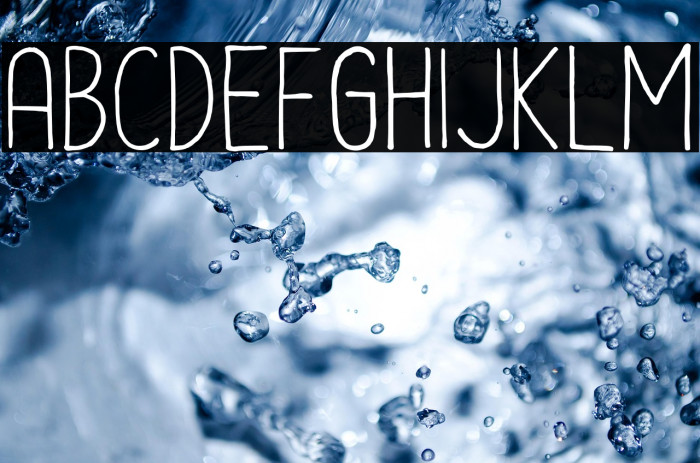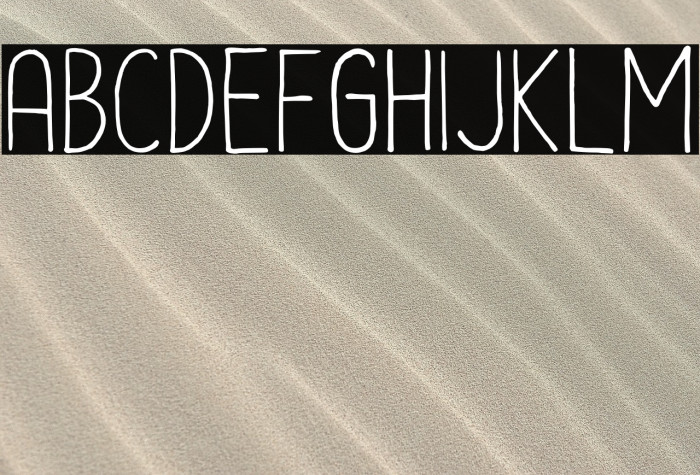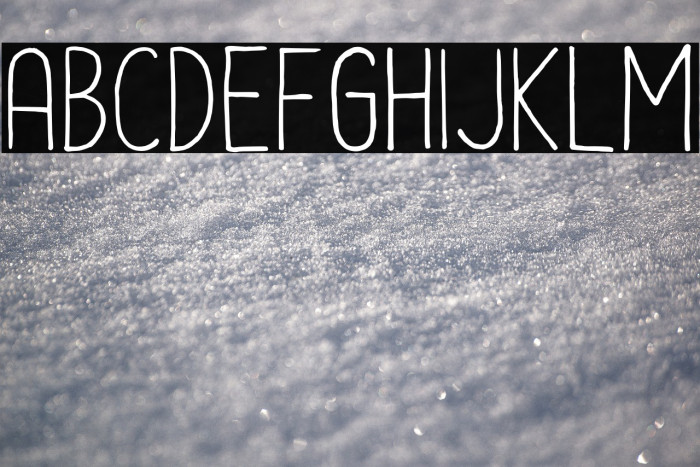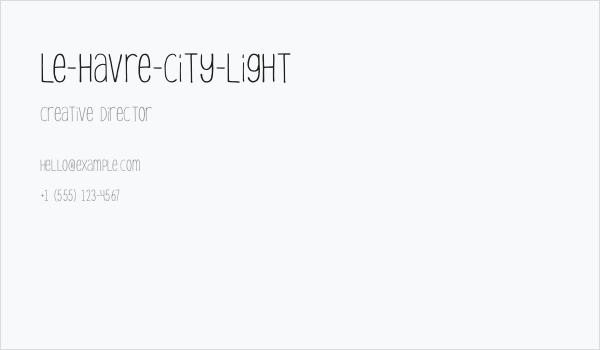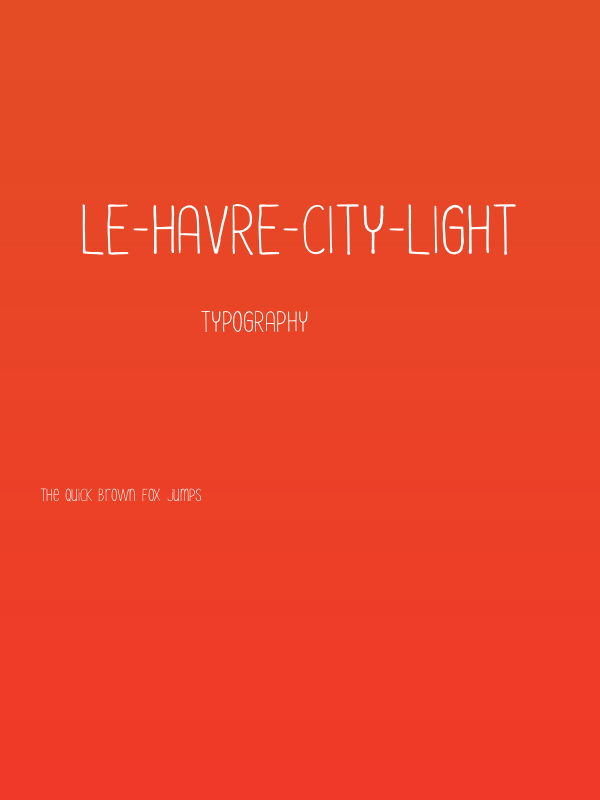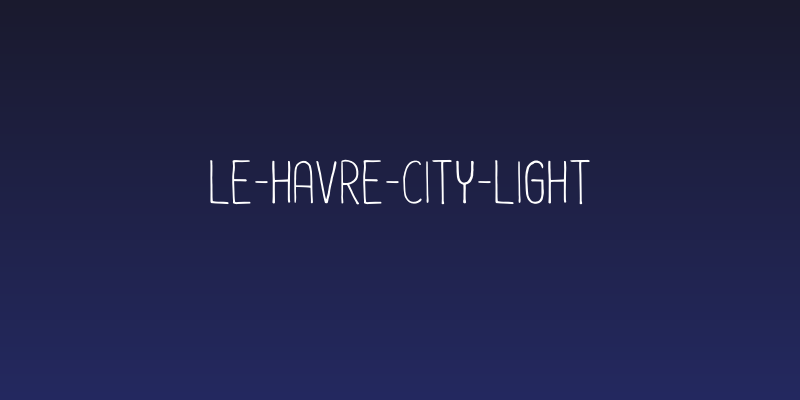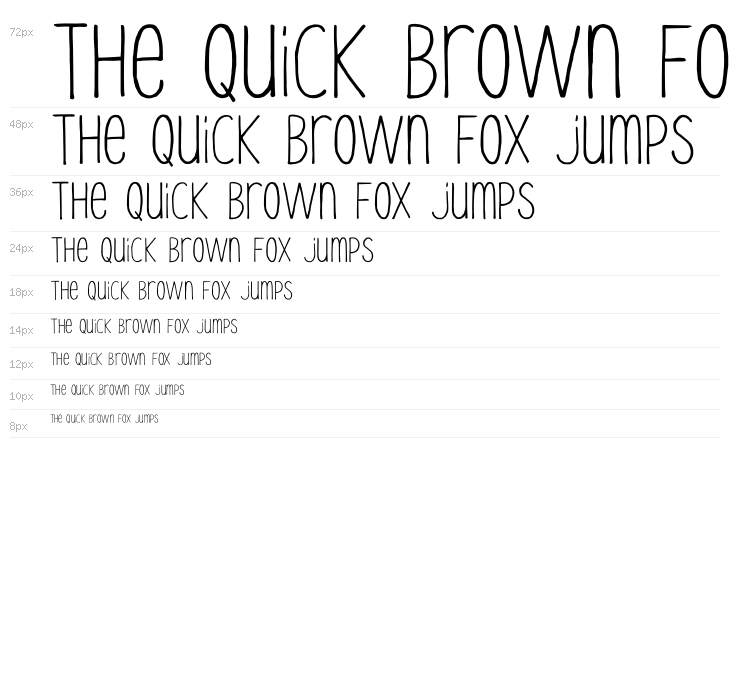
Le-Havre-City-Light Font
Le-Havre-City-Light Description
This font features a playful and casual handwritten style, characterized by its tall, narrow letterforms and slightly irregular strokes. The uppercase and lowercase letters maintain a consistent height, giving it a uniform appearance. The numbers and special characters follow the same aesthetic, with a whimsical touch that adds personality. The strokes are thin and consistent, contributing to a light and airy feel. This font is ideal for projects that require a friendly and approachable look, such as children's books, greeting cards, or informal branding. Its simplicity and charm make it versatile for various creative applications.
| Use Case | Headlines, Logos, Informal text |
| Proposed Projects | Children's books, greeting cards, informal branding, creative invitations. |